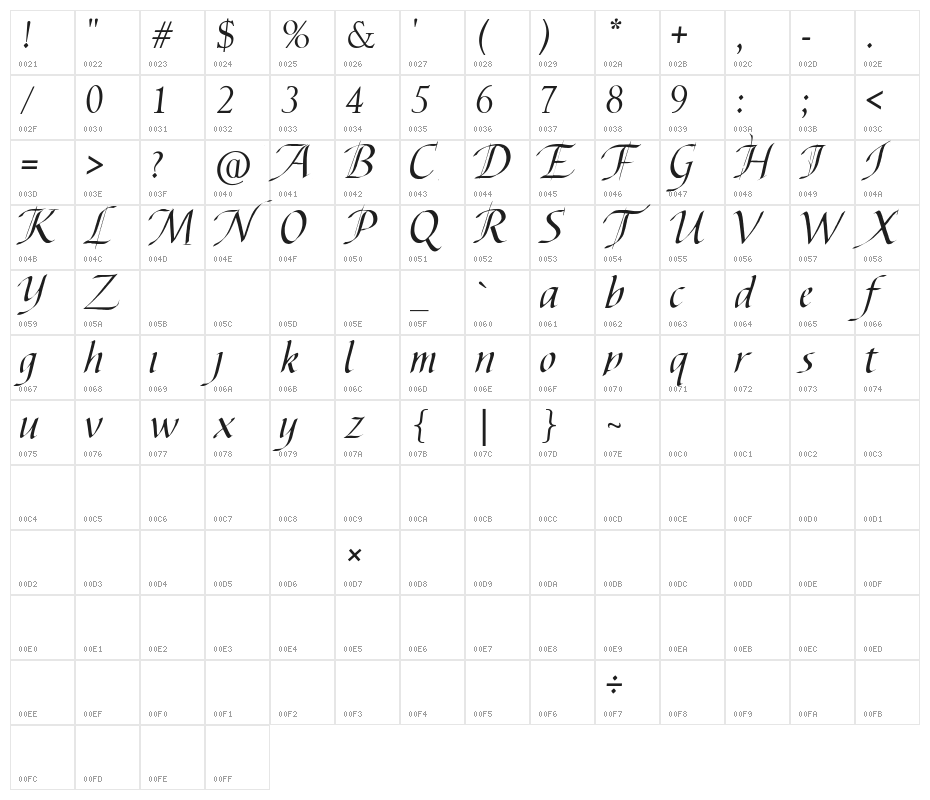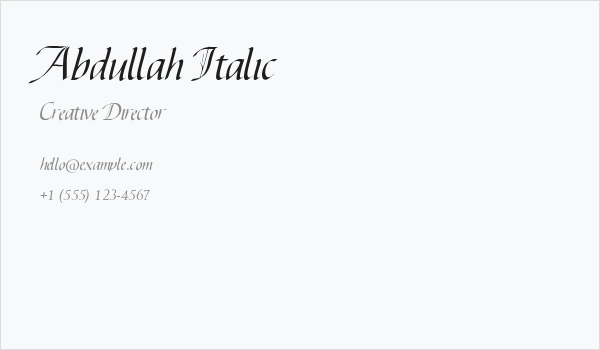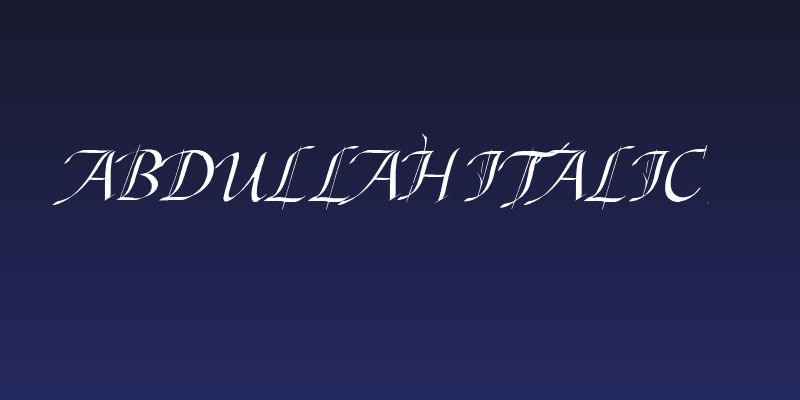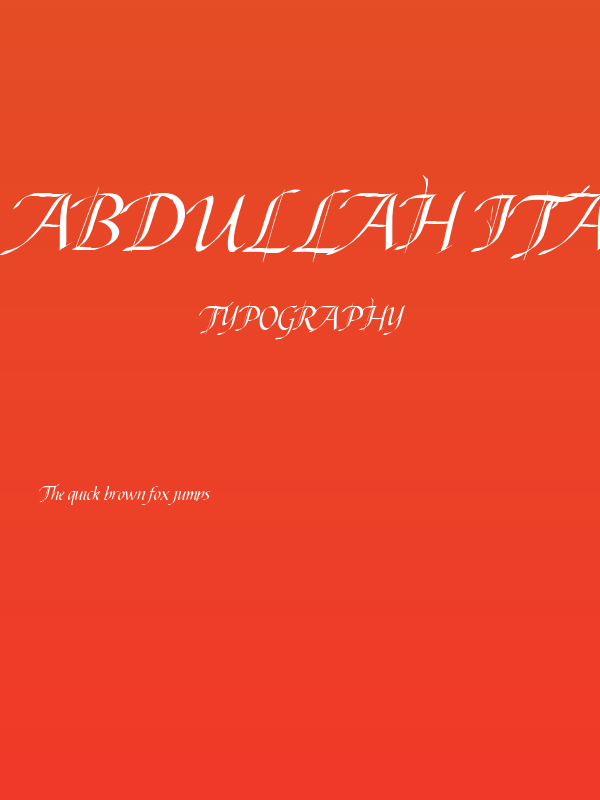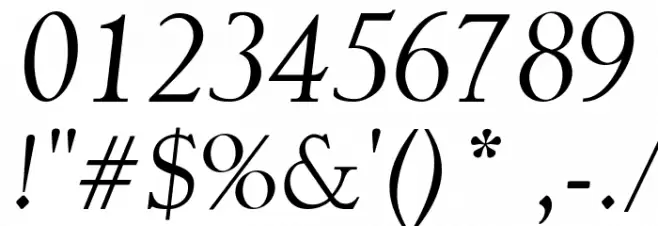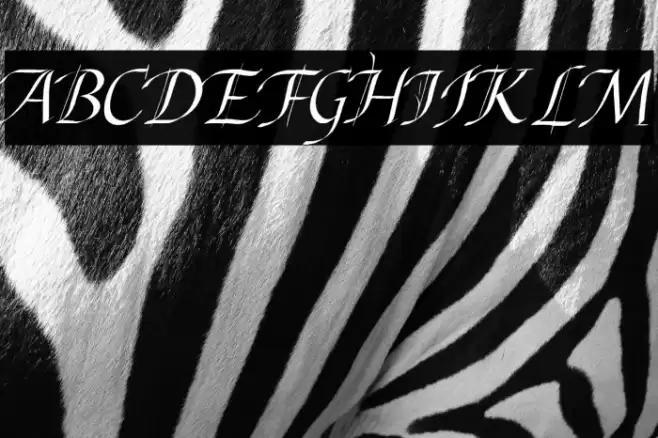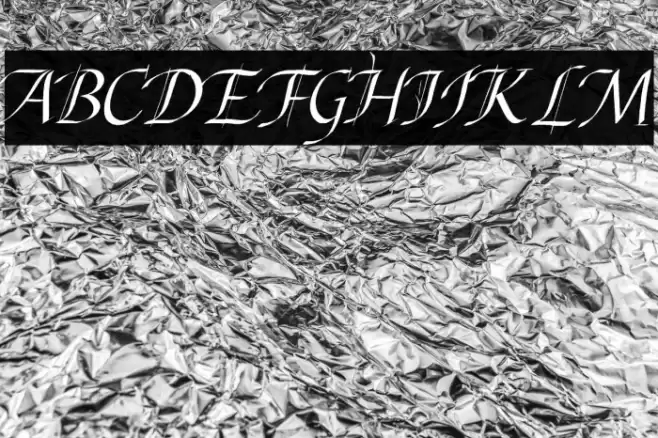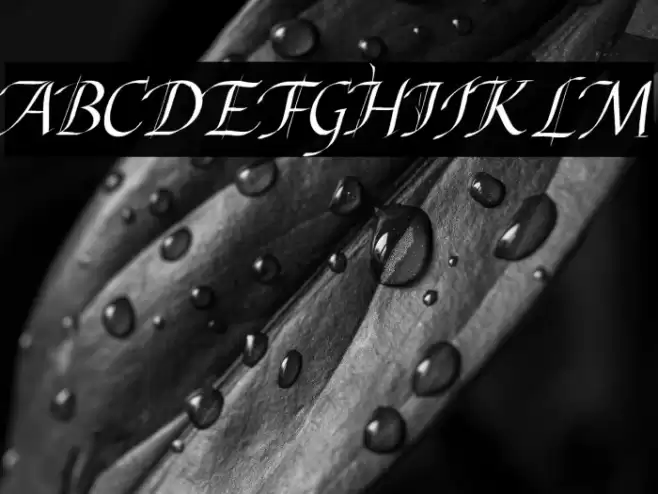
Abdullah Italic Font
Abdullah Italic Description
This elegant and sophisticated font features a flowing, cursive style with a distinct italic slant. The uppercase letters are characterized by sharp, angular serifs and a dynamic, sweeping motion that conveys a sense of movement and grace. The lowercase letters maintain a consistent style, with smooth curves and a slightly condensed form that enhances readability. The numerals are bold and clear, complementing the overall aesthetic. Special characters are designed with the same attention to detail, ensuring a cohesive look across all glyphs. This font's high contrast between thick and thin strokes adds to its dramatic appearance, making it suitable for a variety of creative applications.
| Width | Condensed |
| Overall Style | Elegant, Sophisticated |
| Use Case | Headlines, Invitations, Branding |
| Proposed Projects | Ideal for wedding invitations, luxury branding, editorial design, and elegant packaging. |